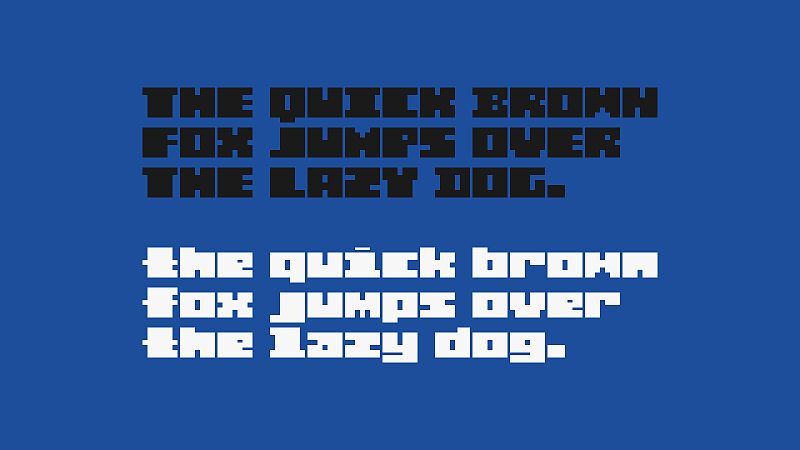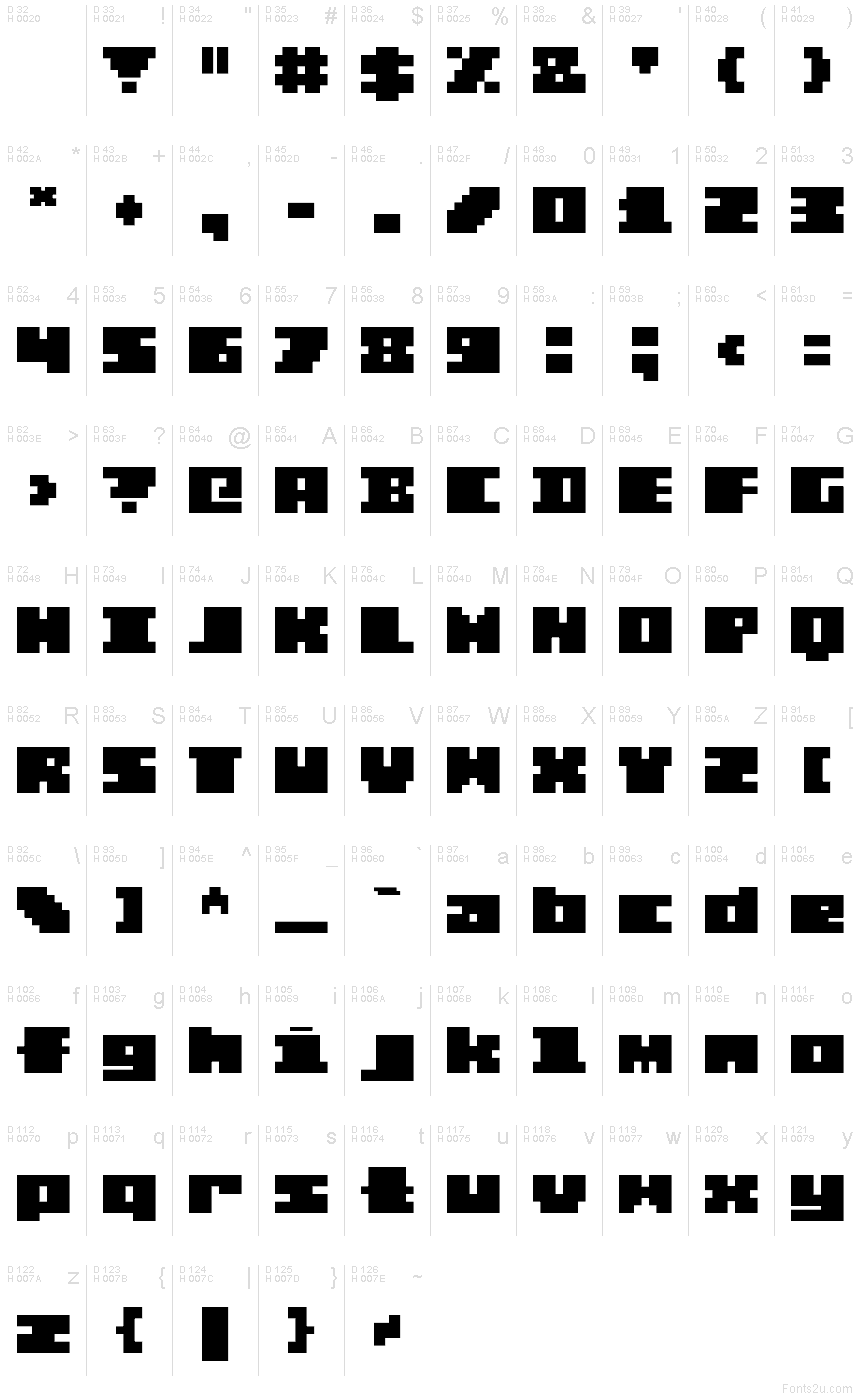
DarkByte
DarkByte font by GGBotNet is a free pixelated bitmap typeface. Every letter feels hewn from solid blocks, with small punched-out squares and stepped corners that create a gritty, arcade-meets-industrial vibe. The forms sit tight and heavy, locking words into bold bands that pop hardest on dark backgrounds and in high-contrast palettes.
Using DarkByte, titles snap with retro-tech energy—think game logos, stream overlays, synthwave posters, YouTube thumbnails, stickers, and HUD screens. This free font wants to be large; add a notch of letterspacing at smaller sizes to keep the grid crisp. For supporting text, pair it with a thin geometric sans or a clean monospace to let the chunky headlines breathe.